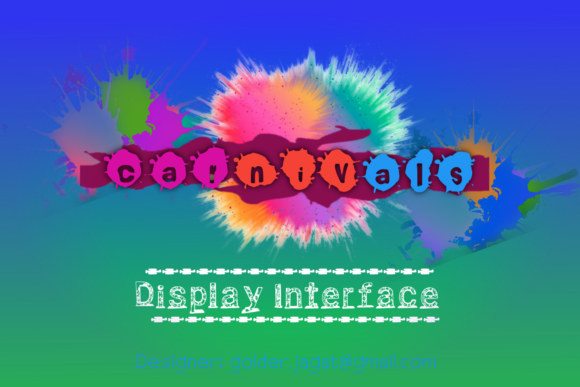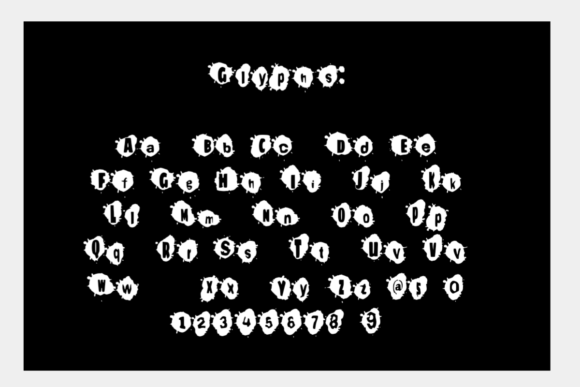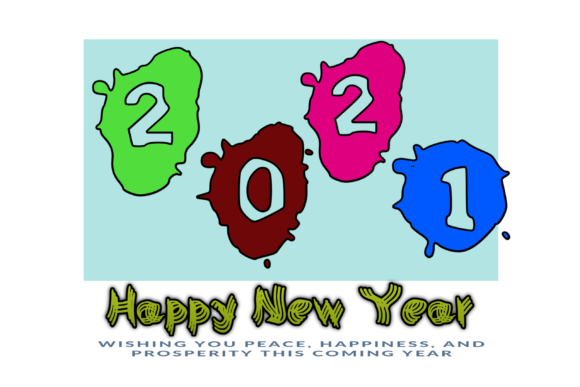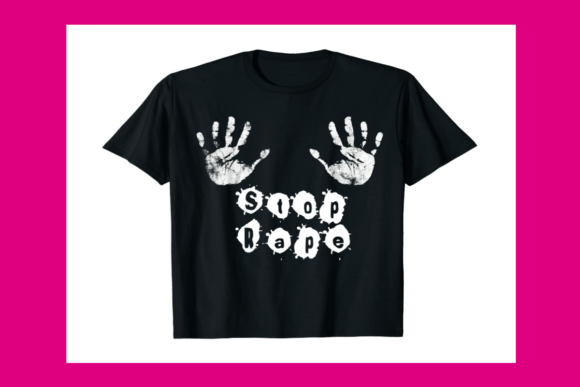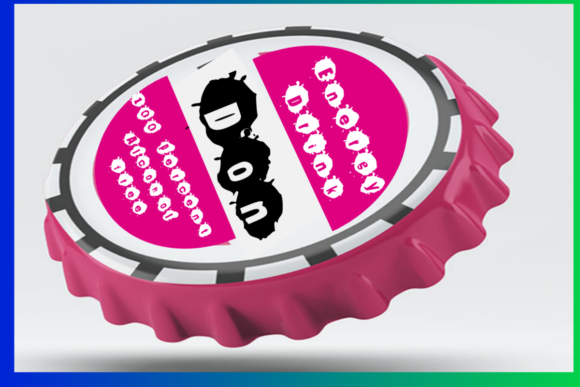
Carnivals is a neat and fun decorative font. Whether you’re using it for crafting, digital designing, presentations or greeting cards making, it’s perfect!